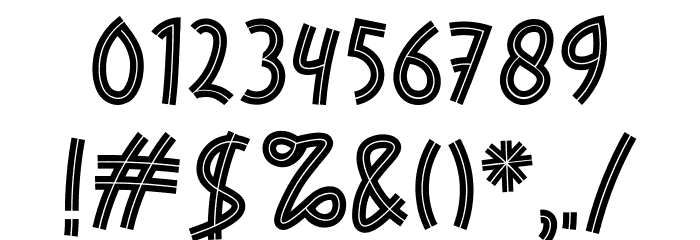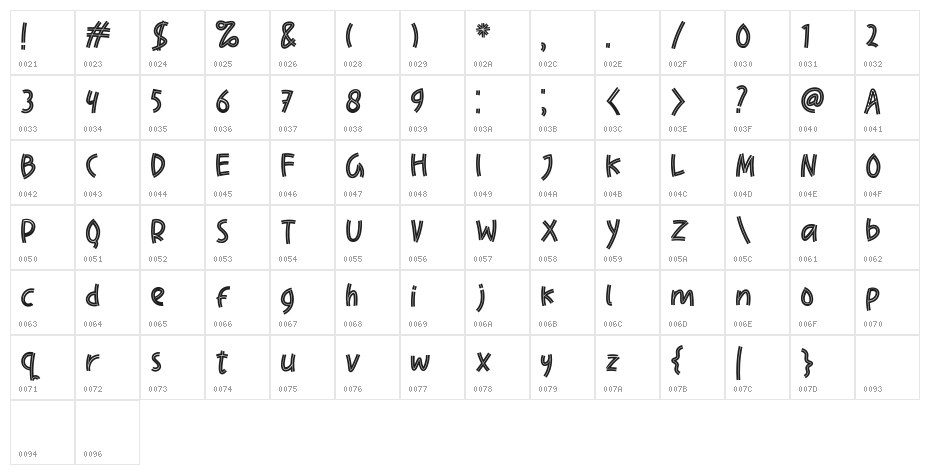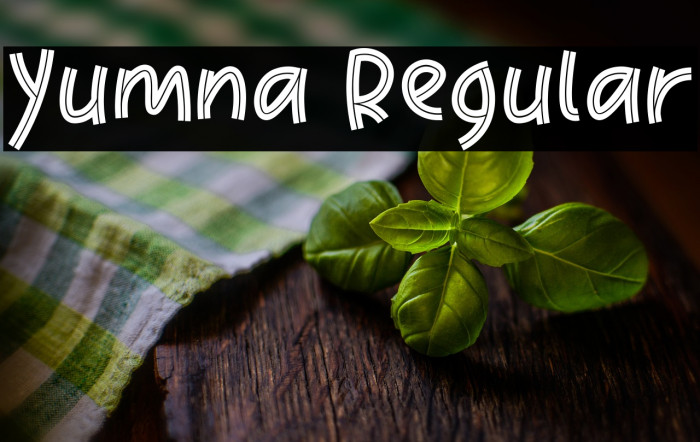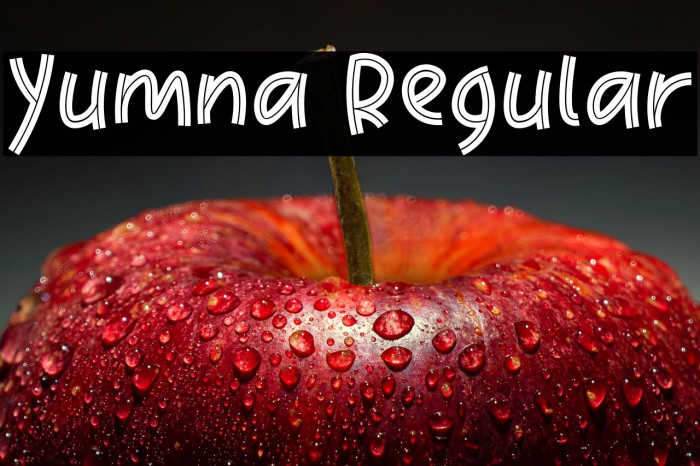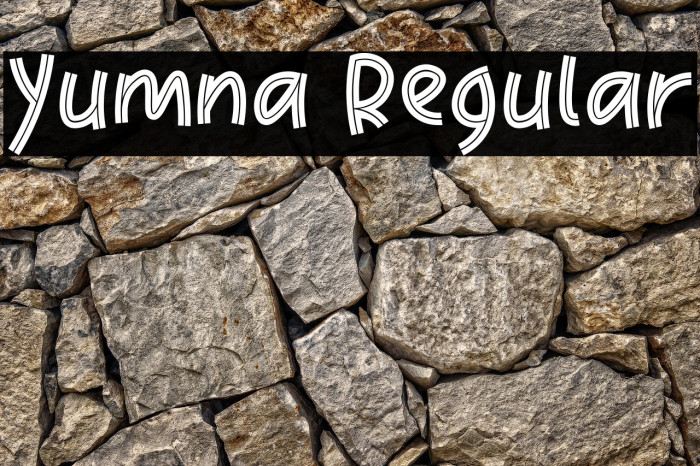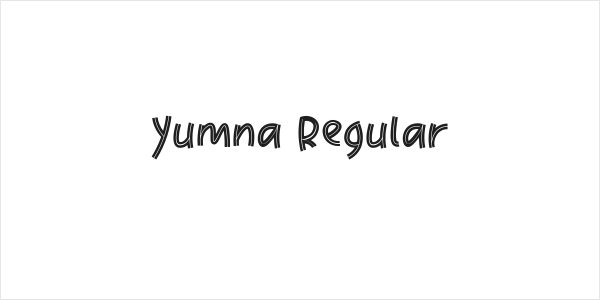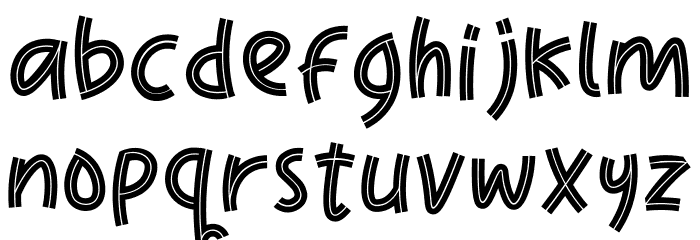
Yumna Regular Font
Yumna Regular Description
This font features a playful and dynamic style with a hand-drawn appearance. The characters are bold and slightly irregular, giving them a lively and informal feel. The strokes are thick and consistent, with a slight slant that adds to the casual aesthetic. The uppercase and lowercase letters maintain a uniform height, while the numbers and special characters are designed to match the overall whimsical style. This font is ideal for projects that require a fun and approachable look, such as children's books, playful branding, or creative posters.
| Proposed Projects | Children's books, playful branding, creative posters, informal invitations. |